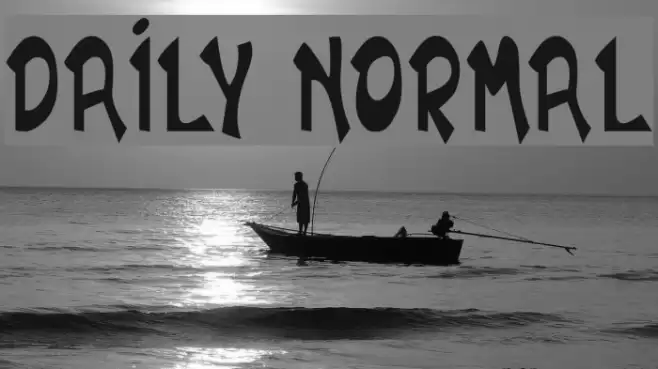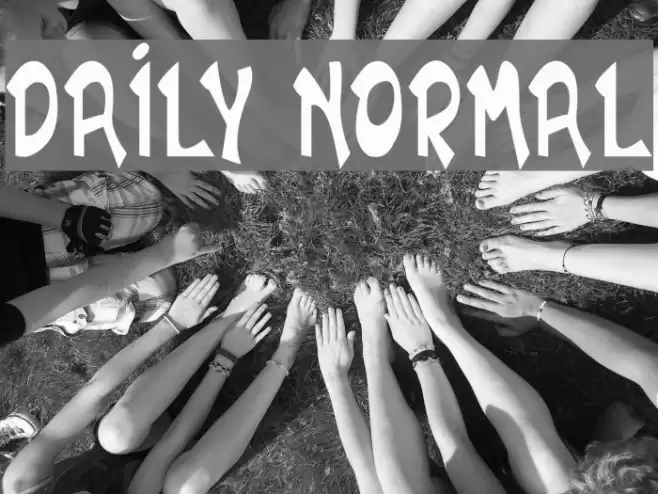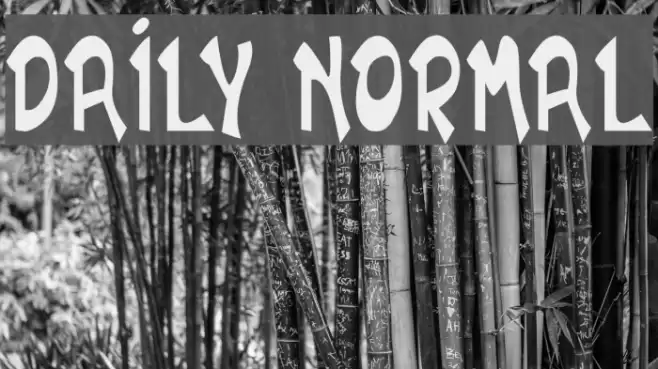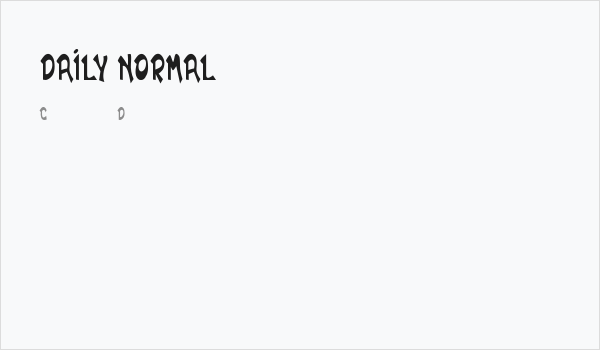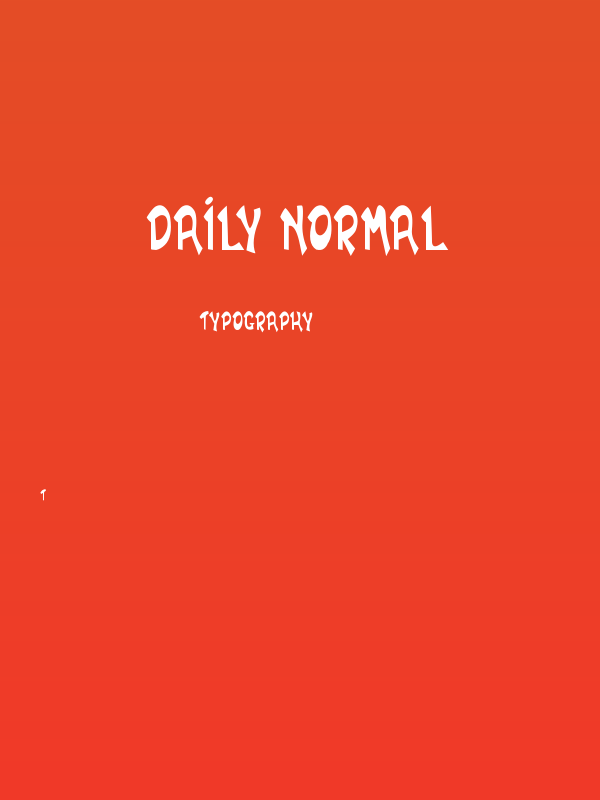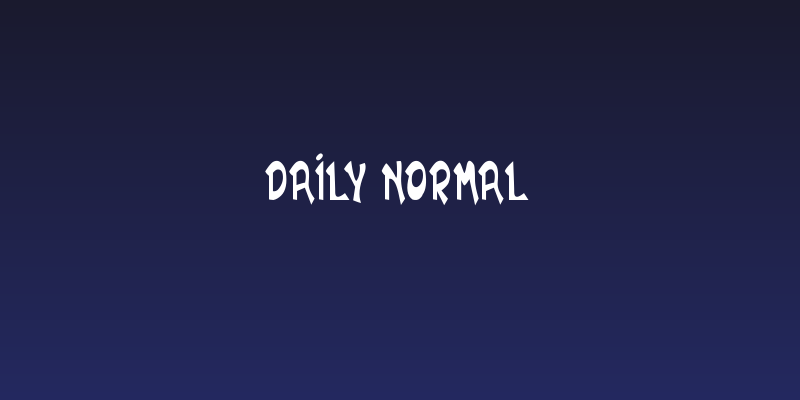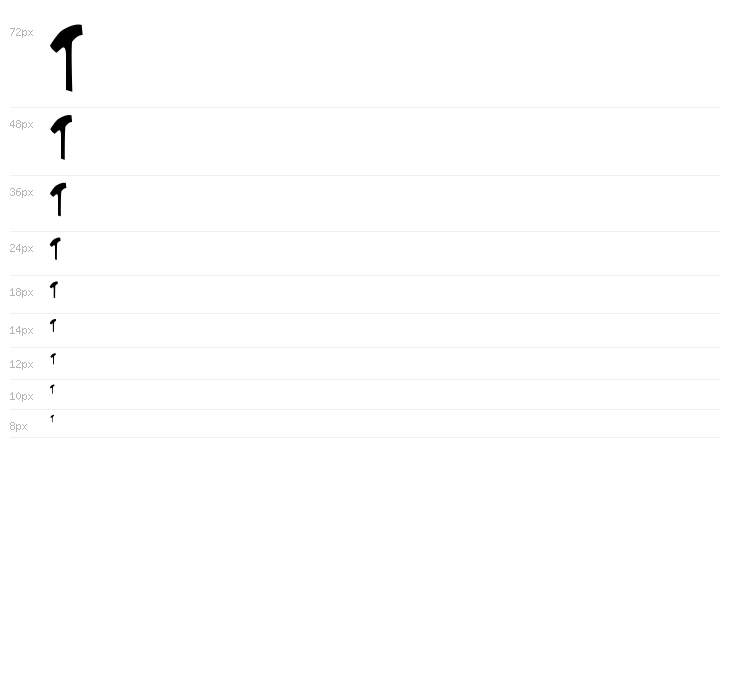
DAILY NORMAL Font
DAILY NORMAL Description
This font features a bold and striking design with a medieval flair, characterized by its sharp, angular edges and unique serifs. The uppercase letters exhibit a strong presence, with a slightly condensed form that enhances their boldness. The style is reminiscent of Gothic or Blackletter fonts, yet it maintains a modern twist with clean lines and a balanced structure. The characters are evenly spaced, providing a cohesive and uniform appearance. This font is ideal for projects that require a dramatic and impactful visual element, such as posters, logos, or headlines.
| Proposed Projects | Ideal for posters, logos, headlines, and any design requiring a dramatic and impactful style. |